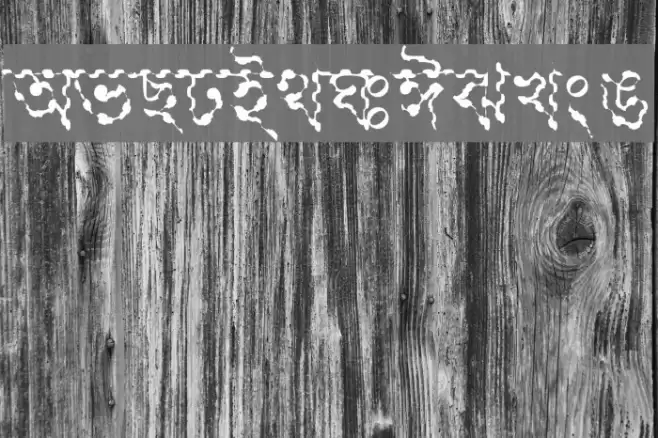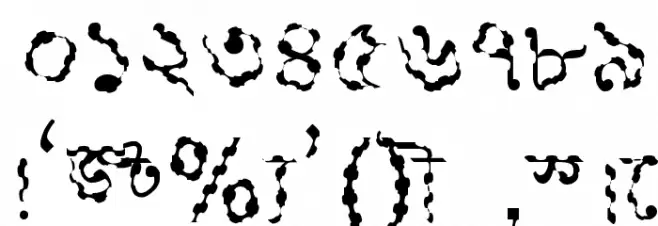
Progoty Wave Font
Progoty Wave Description
This font features a unique and artistic design, characterized by its fluid, wave-like strokes that create a sense of movement and dynamism. The characters are intricately crafted, with each letter displaying a distinct curvature and flow, reminiscent of calligraphic styles. The font maintains a consistent thickness throughout, providing a balanced and harmonious appearance. Its decorative nature makes it stand out, offering a visually engaging experience. The numbers and special characters are designed with the same attention to detail, ensuring a cohesive look across all elements.
A decorative font with fluid, wave-like strokes and a calligraphic style from Uncategorized fonts.
- Proposed Projects: Ideal for artistic projects, branding, posters, and invitations where a unique and eye-catching font is desired.